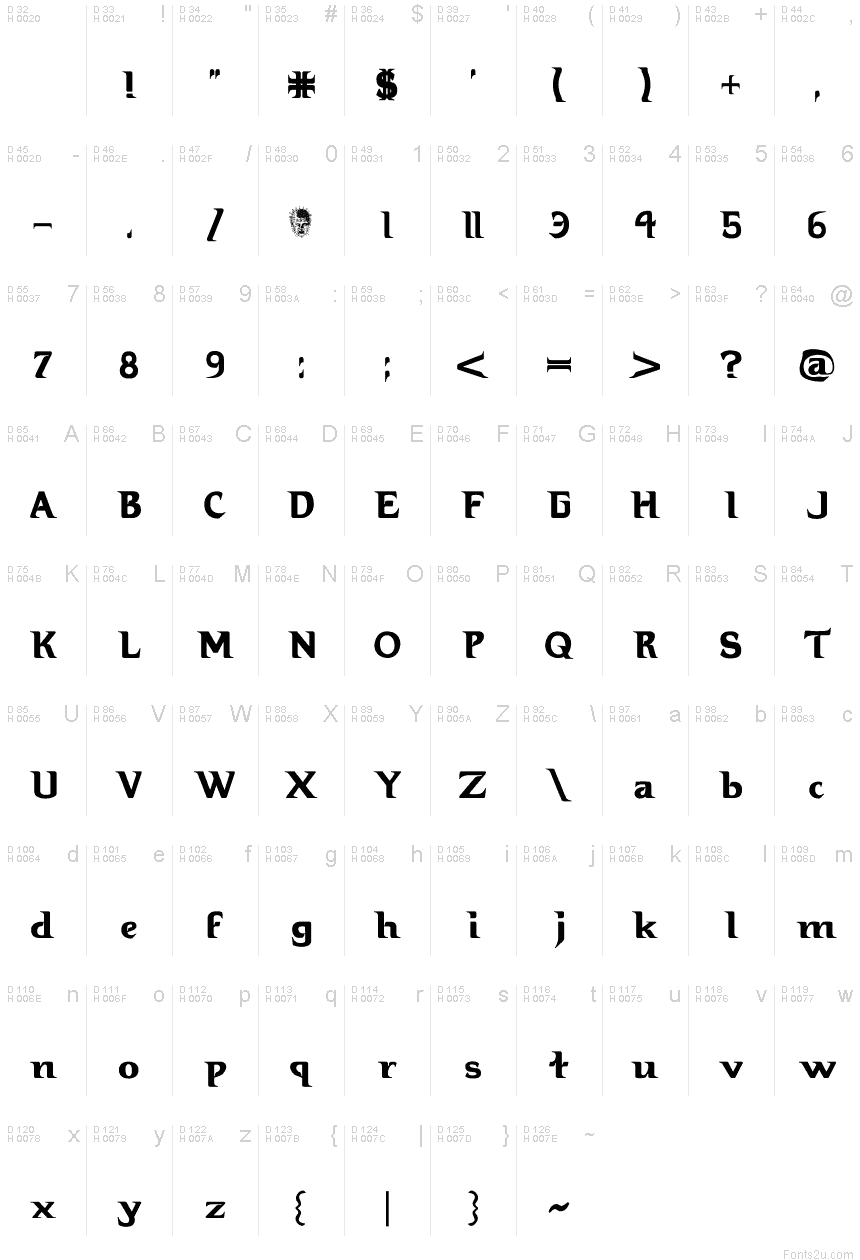
Hellbound
Hellbound font by Thomas W.Otto - Norfok Inc. is a free retro display typeface that looks like it crawled off an old horror poster and onto your screen. Heavy, inky strokes curl into sharp hooks and swooping tails, giving each word a moody, theatrical presence. The letters feel dense and slightly menacing, yet still readable, with a rhythm that pulls the eye along like a flickering marquee on a foggy night.
Using Hellbound, you can push atmosphere front and center on horror movie titles, Halloween event posters, gothic band logos, occult zines, game splash screens, and eerie book covers. This free font shines at large sizes where its chunky curves and jagged details can really breathe; pair it with a narrow, clean sans serif for body copy to keep the drama focused where it belongs—on the headline.